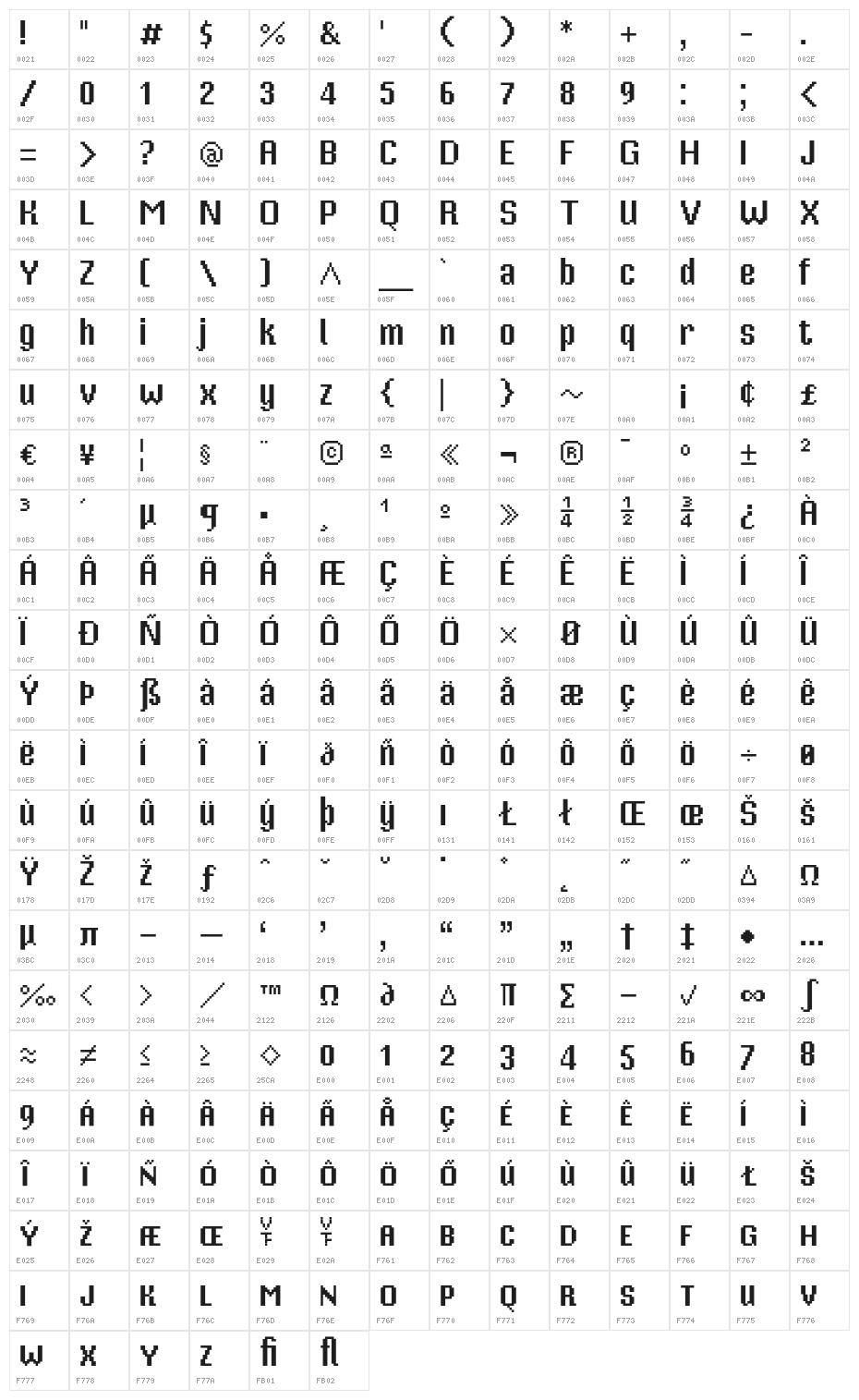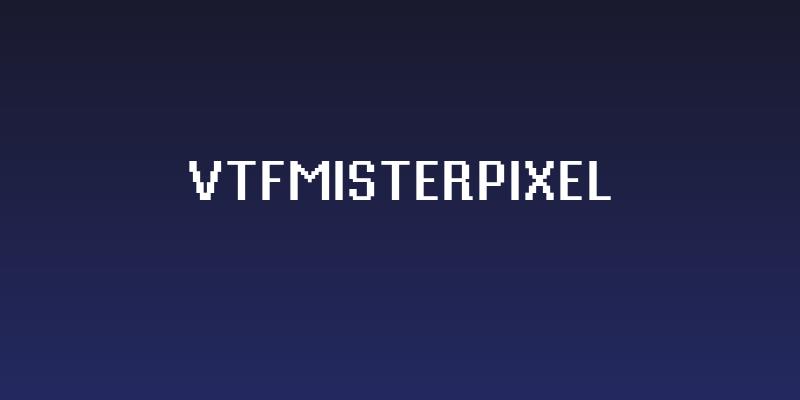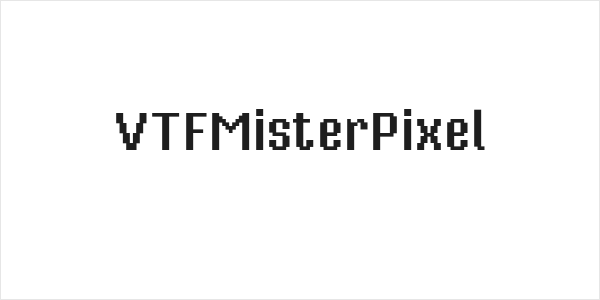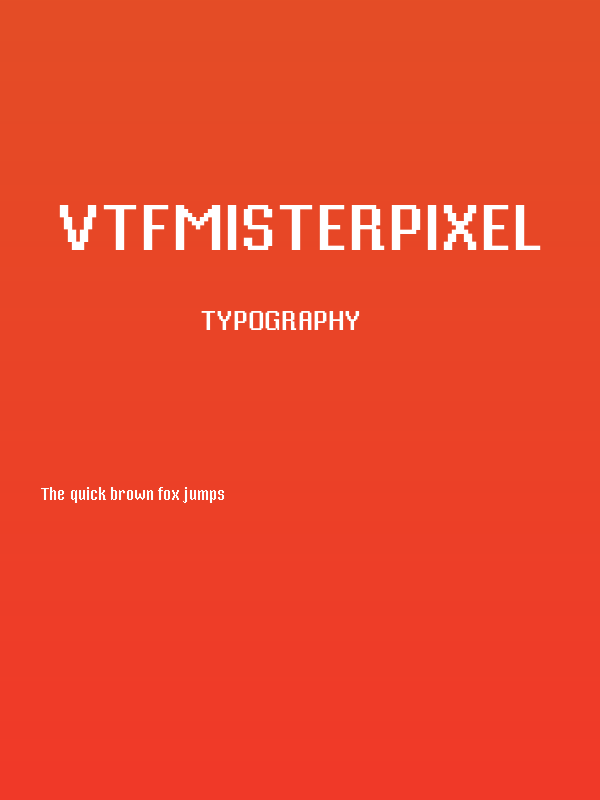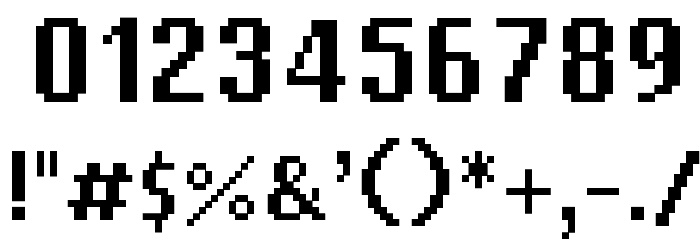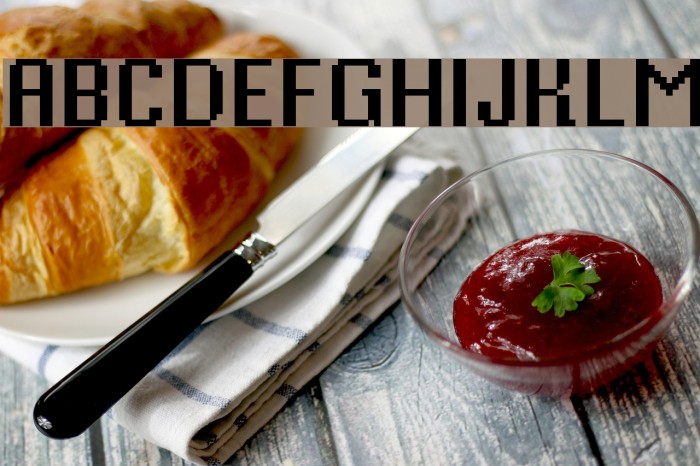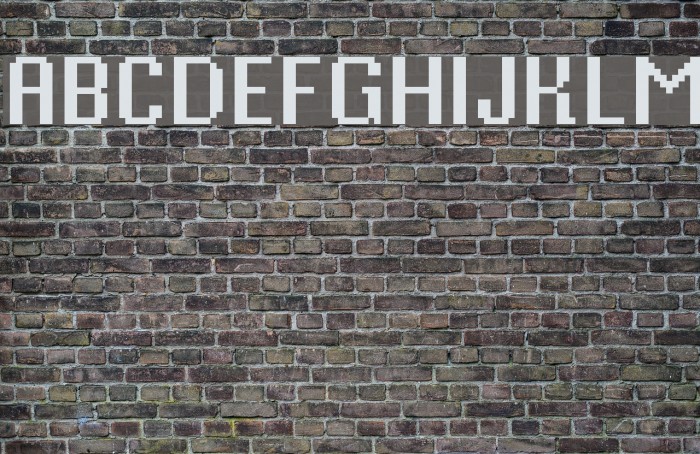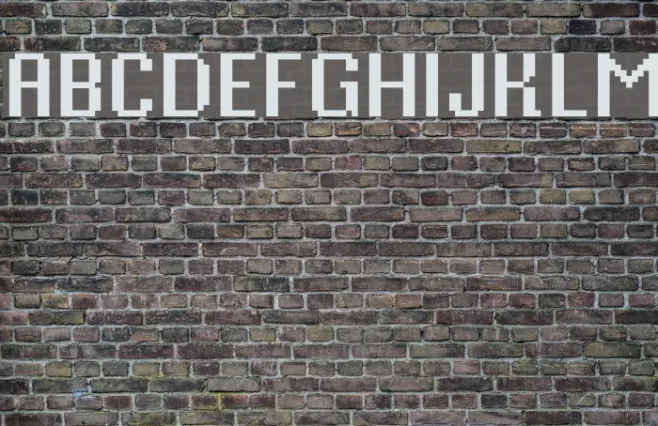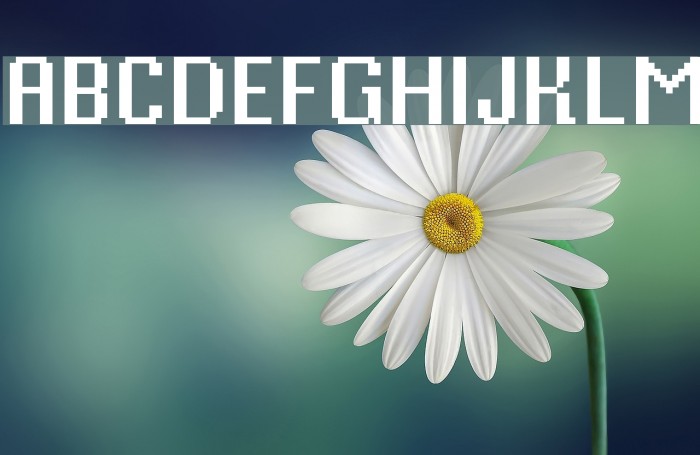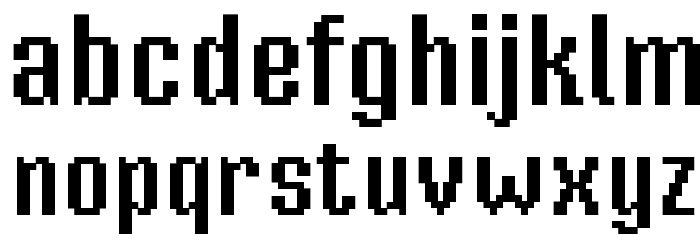
VTFMisterPixel Font
VTFMisterPixel Description
This font features a pixelated, blocky design reminiscent of early digital displays and retro video games. Each character is constructed with a grid-like precision, giving it a distinctly geometric and modular appearance. The uppercase and lowercase letters maintain a consistent height, contributing to a uniform look. Numbers and special characters are crafted with the same pixelated style, ensuring visual coherence across all elements. The font's nostalgic aesthetic makes it ideal for projects that aim to evoke a sense of vintage digital technology or retro gaming culture.